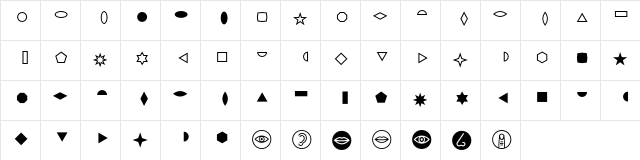
FFDingbats BasicForms Font Preview
FFDingbats BasicForms
Design Context for FFDingbats Typeface
FFDingbats takes a measured approach to typography — its balanced proportions and neutral character make it a reliable workhorse for both digital and print work.